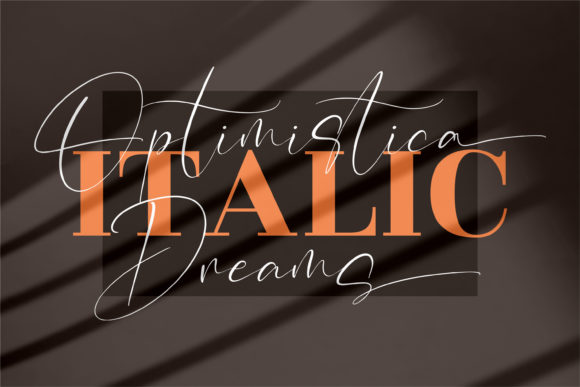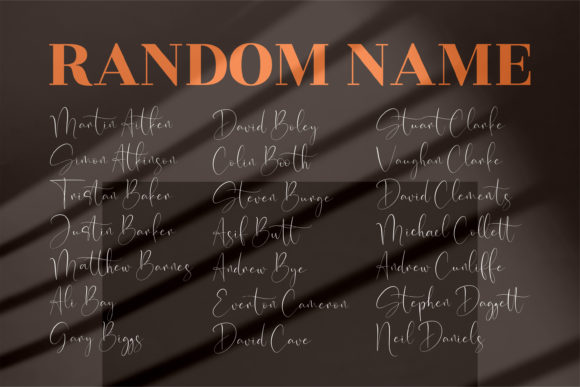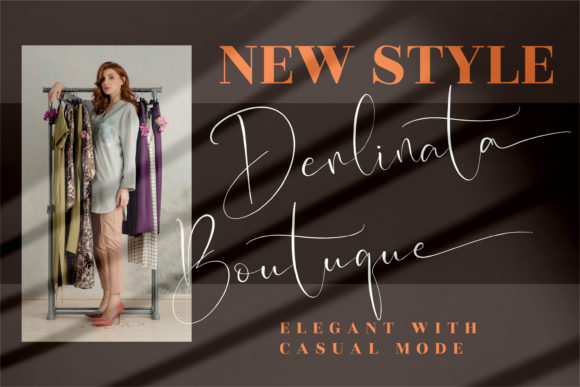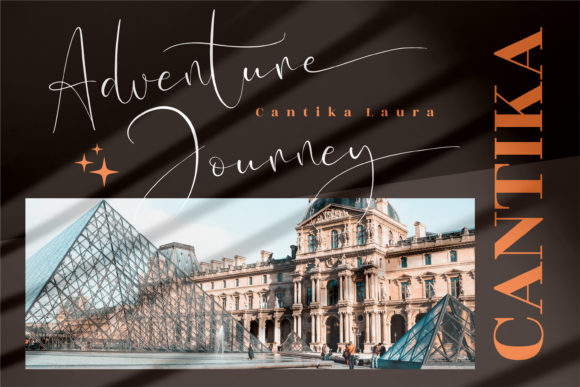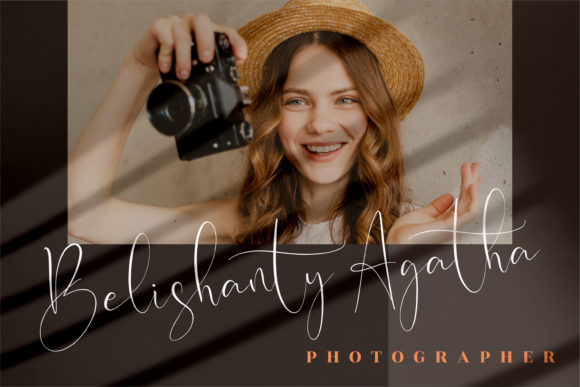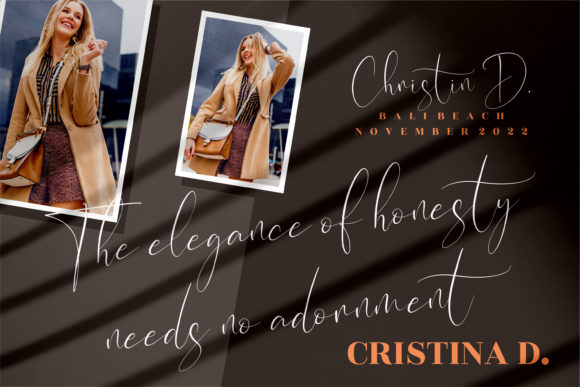
Introduction to Optimistica Dreams Font
As you sit at your desk, surrounded by scattered papers and half-finished designs, the perfect idea finally strikes you. It’s the perfect combination of elegance and whimsy, a design that will make your creative project truly stand out. And, as if the universe is smiling down on you, you stumble upon the perfect font to bring your vision to life – the enchanting Optimistica Dreams Font.
This beautiful script font is a treasure trove of creativity, with its delicate, thin letters and flowing lines that seem to dance across the page. Whether you’re designing a wedding invitation, a social media post, or a piece of stationery art, Optimistica Dreams Font is the perfect design resource to elevate your work. With its transparent background and high-quality design, this font is a valuable asset for any designer looking to add a touch of sophistication to their projects.
Key Features of Optimistica Dreams Font
- Unique, hand-drawn design that adds a touch of elegance to any creative project
- High-quality, vector-based font available for free download, making it an excellent resource for designers
- Transparent background option allows for seamless integration with various design elements
- Includes a range of characters, including uppercase and lowercase letters, numbers, and punctuation marks
- Designed to work at high resolutions, making it suitable for large-scale designs and prints
- Perfect for designers looking for a stylish, yet easy-to-read font for their next design project
Honest Review: Optimistica Dreams Font
As a designer, I’m always on the lookout for high-quality design resources that can elevate my creative projects. Recently, I stumbled upon the Optimistica Dreams Font and was excited to give it a try.
What works well about this font is its beautiful, hand-drawn style and the fact that it’s free to download. I love the playful, whimsical feel it brings to my designs. The font is highly customizable, allowing me to adjust the spacing, size, and color to suit my needs. The transparent background option is also a great feature, making it easy to overlay text on images.
The Optimistica Dreams Font is perfect for creating eye-catching graphics, social media posts, and even branding materials. Here are some of its key features:
- High-quality, hand-drawn design
While the Optimistica Dreams Font is a great addition to any designer’s toolkit, there are a few limitations to consider: ⚠️
- May not be suitable for formal or professional designs
- Limited font sizes and styles
Overall, I’m impressed with the Optimistica Dreams Font and would definitely recommend it to fellow designers looking for a high-quality, free design resource. It’s perfect for adding a touch of personality to your creative projects.
Optimistica Dreams Font
Tips for Getting the Most Out of Optimistica Dreams Font
Experiment with different font sizes and styles to achieve the desired effect. Use the font in combination with other design elements to create a cohesive and visually appealing design. Take advantage of the free download to use the font in multiple projects.
The Optimistica Dreams Font is ideal for creative projects such as branding, marketing materials, and digital graphics. Its high quality and transparent background make it a great choice for designs that require a professional and polished look.
Alternatives to Optimistica Dreams Font
Great Vibes Font is a high-quality, handwritten font perfect for adding a personal touch to your creative project. It features a transparent background, making it ideal for use on images or videos. Great Vibes Font is a great alternative to Optimistica Dreams Font for designers who want a more elegant and sophisticated look.
Comparison to Optimistica Dreams Font: Great Vibes Font is more elegant and less playful than Optimistica Dreams Font, making it suitable for a wider range of design applications.